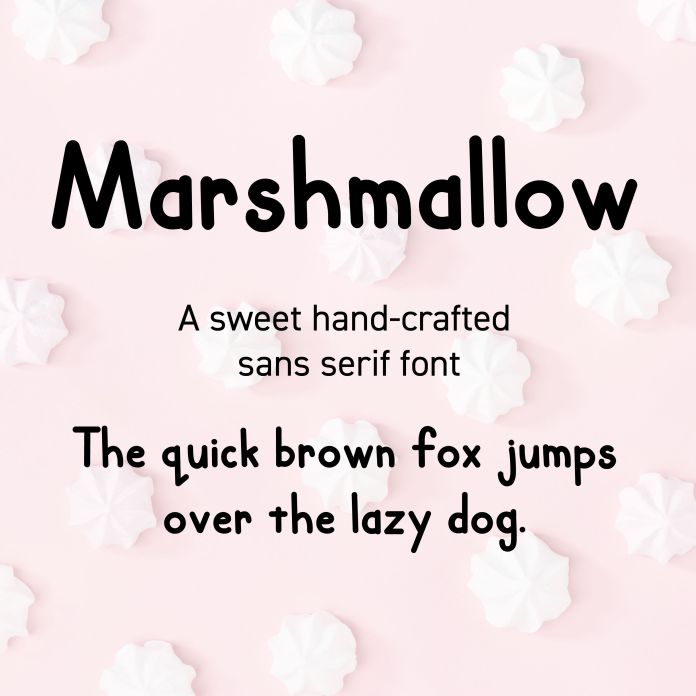
Marshmallow Craft Font is a delightful hand-crafted sans-serif font that exudes softness and charm. With its rounded stems and smooth, fluffy feel, it strikes the perfect balance between playful and modern. The characters are evenly proportioned, making it highly legible while maintaining a whimsical, cozy vibe. Perfect for branding, packaging, greeting cards, or any project that needs a touch of sweetness, Marshmallow adds warmth and personality to your designs. Its friendly and approachable aesthetic feels like a hug in typographic form!